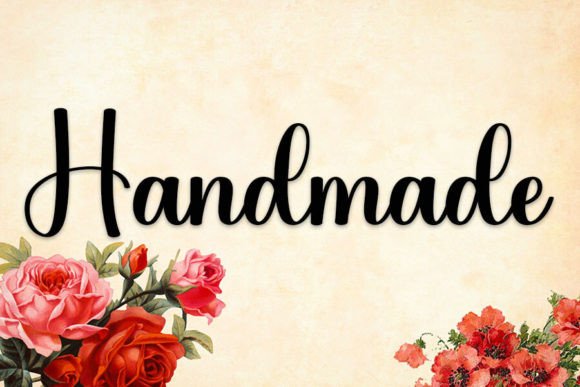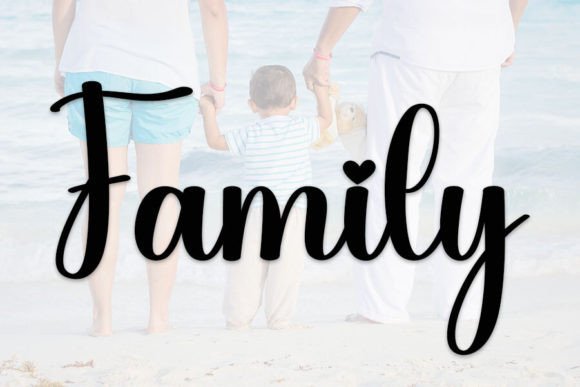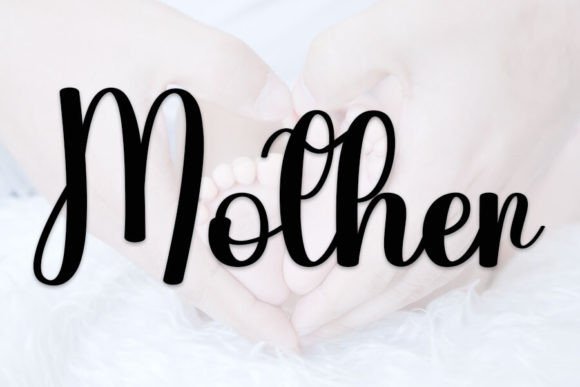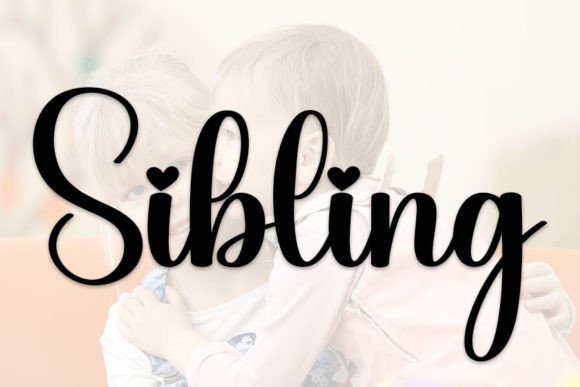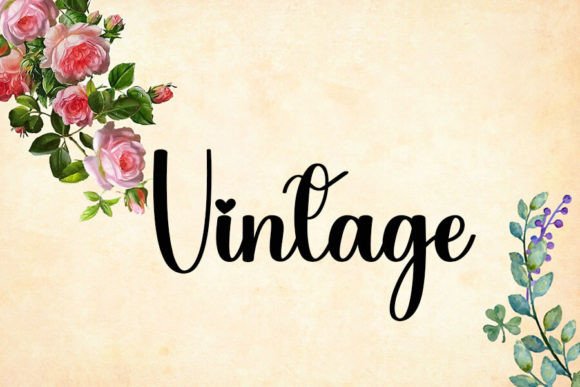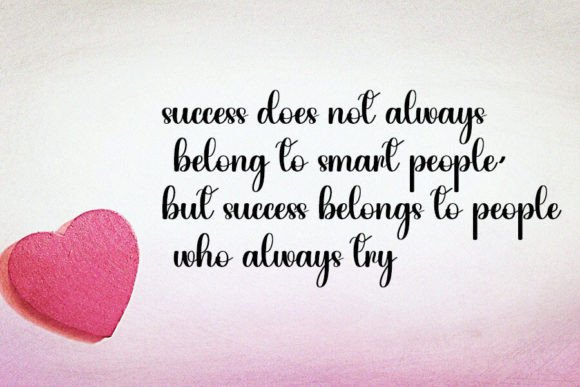
Auntie Font: Elevate Your Designs with Elegance and Timeless Style
Are you on the hunt for a font that exudes elegance, sophistication, and a touch of timeless charm? Look no further than Auntie Font, a beautiful handwritten font that is sure to capture your heart. With its incredibly distinct and stylish aesthetic, Auntie Font is the perfect addition to your design arsenal, allowing you to create spectacular designs that stand out from the crowd.
The Characteristics of Auntie Font
Auntie Font is described as a neat and beautiful handwritten font, characterized by an elegant touch that sets it apart from other fonts. Its unique style is both classic and modern, making it versatile enough to be used in a wide range of projects. Whether you’re working on a logo, a branding campaign, a website, or a crafting project, Auntie Font is sure to bring a level of sophistication and refinement that elevates your design to the next level.
Why Fall in Love with Auntie Font?
There are many reasons why designers and crafters will fall in love with Auntie Font. Here are just a few:
- Elegant and Refined: Auntie Font boasts an elegant and refined aesthetic that is perfect for designs that require a touch of sophistication.
- Timeless Style: Unlike trendy fonts that quickly go out of style, Auntie Font has a timeless quality that ensures your designs will remain stylish for years to come.
- Versatile: Whether you’re working on a digital project or a handmade crafting project, Auntie Font is versatile enough to be used in a wide range of applications.
- Distinct and Readable: Auntie Font’s unique style is both distinct and highly readable, making it perfect for body text, headings, and titles.
Using Auntie Font in Your Designs
So, how can you use Auntie Font in your designs? The possibilities are endless! Here are a few ideas to get you started:
- Logo Design: Use Auntie Font to create a stunning logo that sets your brand apart.
- Branding Campaigns: Incorporate Auntie Font into your branding campaigns to add a touch of elegance and sophistication.
- Website Design: Use Auntie Font as a web font to create a beautiful and refined website that showcases your brand’s personality.
- Crafting Projects: Add a personal touch to your crafting projects, such as handmade cards, invitations, and scrapbooking pages, with Auntie Font.
Tips for Getting the Most Out of Auntie Font
To get the most out of Auntie Font, here are a few tips to keep in mind:
- Experiment with Font Sizes: Play around with different font sizes to find the perfect balance for your design.
- Pair with Other Fonts: Combine Auntie Font with other fonts to create a unique and visually appealing typography.
- Use in Combination with Images: Use Auntie Font in combination with images to create a stunning visual effect.
In conclusion, Auntie Font is a beautiful and elegant handwritten font that is sure to capture your heart. With its timeless style, versatility, and distinct aesthetic, Auntie Font is the perfect addition to your design arsenal. Whether you’re a designer or a crafter, Auntie Font is sure to elevate your designs and help you create spectacular projects that stand out from the crowd.